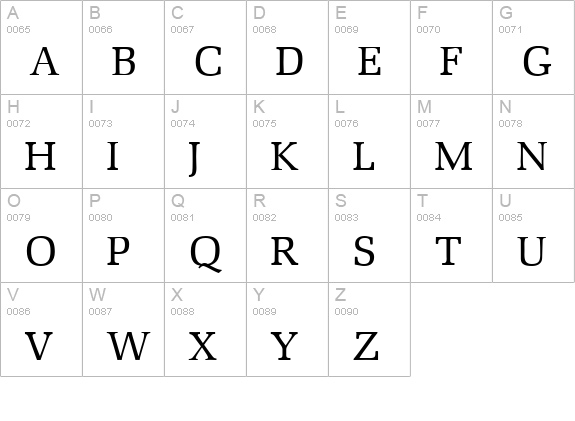
Melmac-Regular Font Details
Melmac-Regular is the standard, neutral variant in the Melmac typeface family \xE2\x80\x94 well suited to general body text, paragraphs, and standard typographic work.